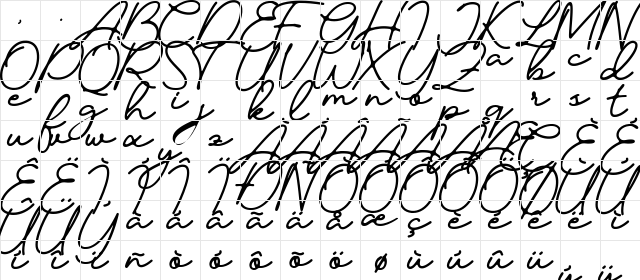
Candelia Regular
| Foundry | Azzam Ridhamalik |
| Designer | Azzam Ridhamalik |
Design Context for Candelia Typeface
Candelia is a composed and adaptable typeface that performs quietly and consistently across a wide range of design contexts.